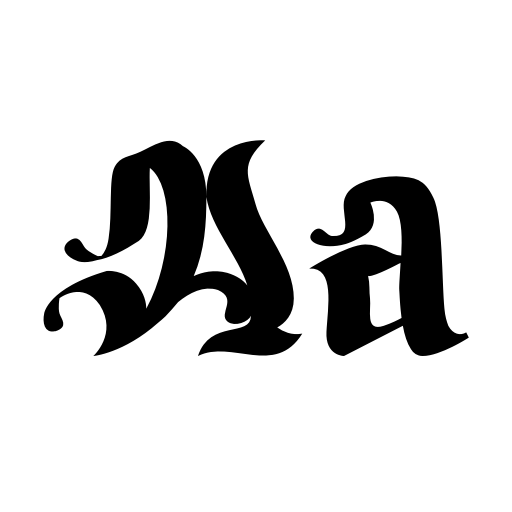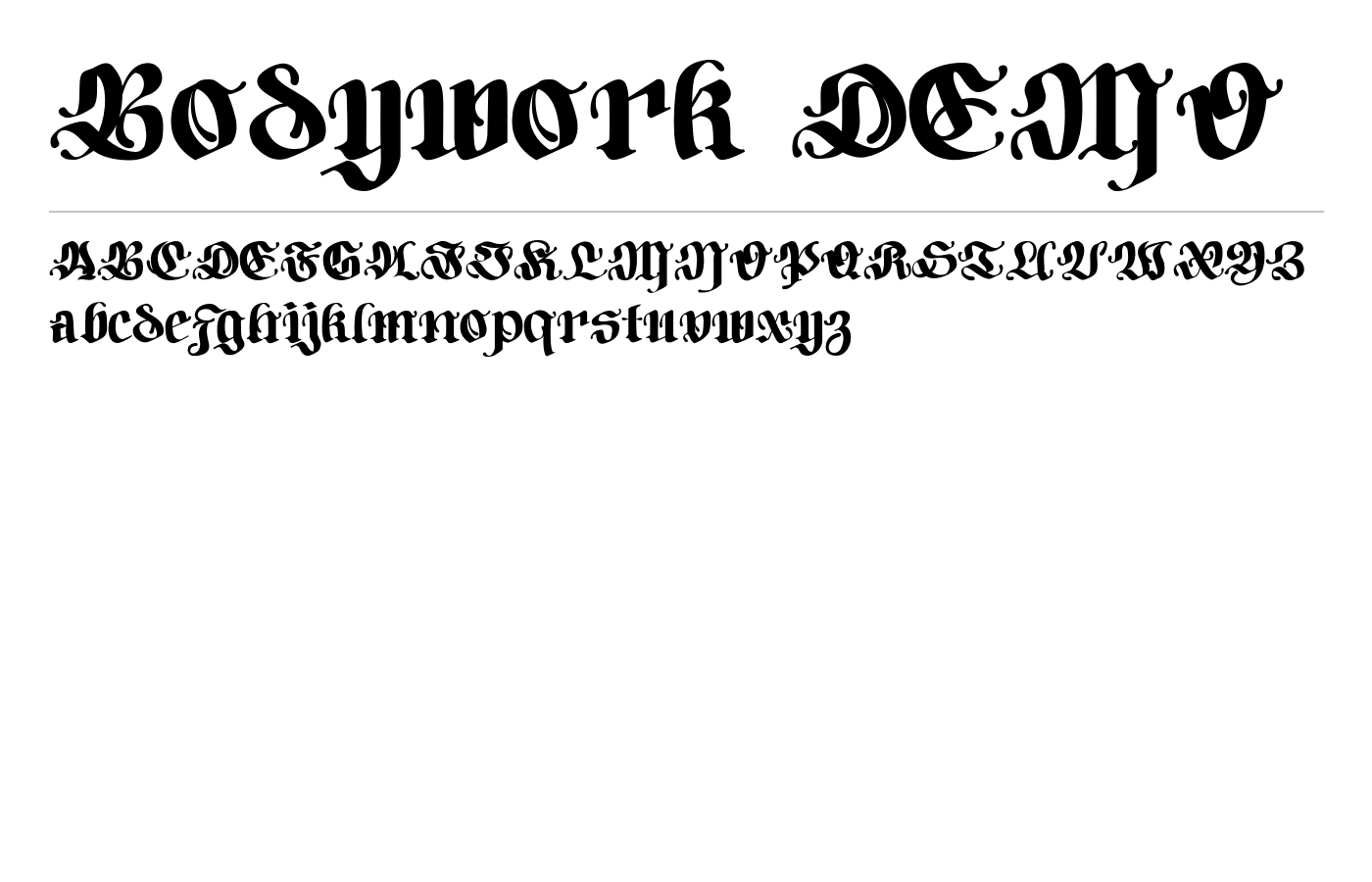
Bodywork DEMO is a bold blackletter serif font characterized by its sharp, dramatic strokes and intricate, gothic-inspired letterforms. With its high contrast between thick and thin lines and distinctive decorative details, this font exudes a strong, classical, and somewhat medieval personality, making it ideal for eye-catching headlines, logos, and design projects that seek a vintage or edgy aesthetic. Its ornate style suits branding or editorial work that aims to convey tradition, power, and a commanding visual presence.
Bodywork DEMO Font
About Bodywork DEMO Font
| Designer | Dharmas Studio |